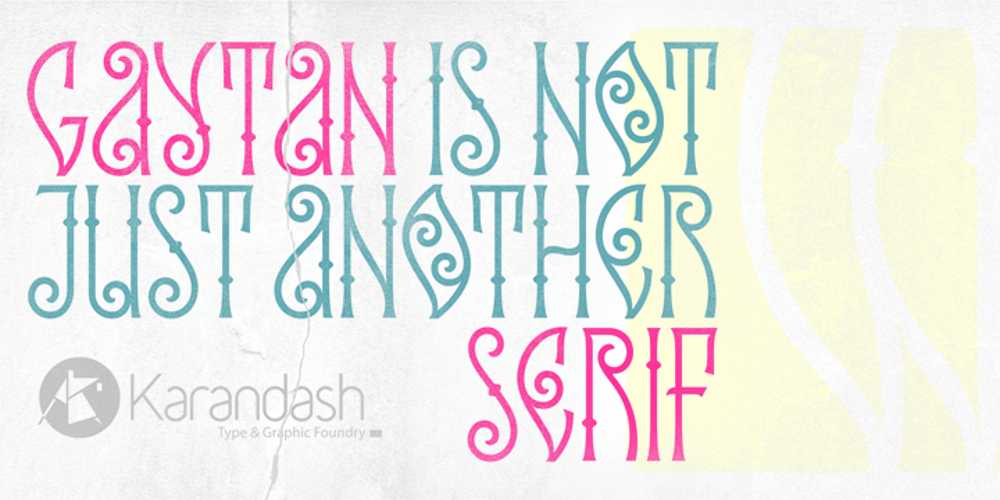
Ka Gaytan Font Family was designed by Vassil Kateliev and published by Karandash. Ka Gaytan contains 2 styles and family package options. Gaytan (Bulgarian for braid) is a fresh new insight on archaic letterforms. A family of two unicase typefaces – a modern looking sans and more classic looking serif, equipped with many alternates, so they can suit any typographic taste. Gaytan’s unique design was inspired by Old Church Slavonic Cyrillic, Bulgarian Ustav and the Russian Vyaz stiles, as well as the avant-garde works of Bulgarian type designers in late 1970s.